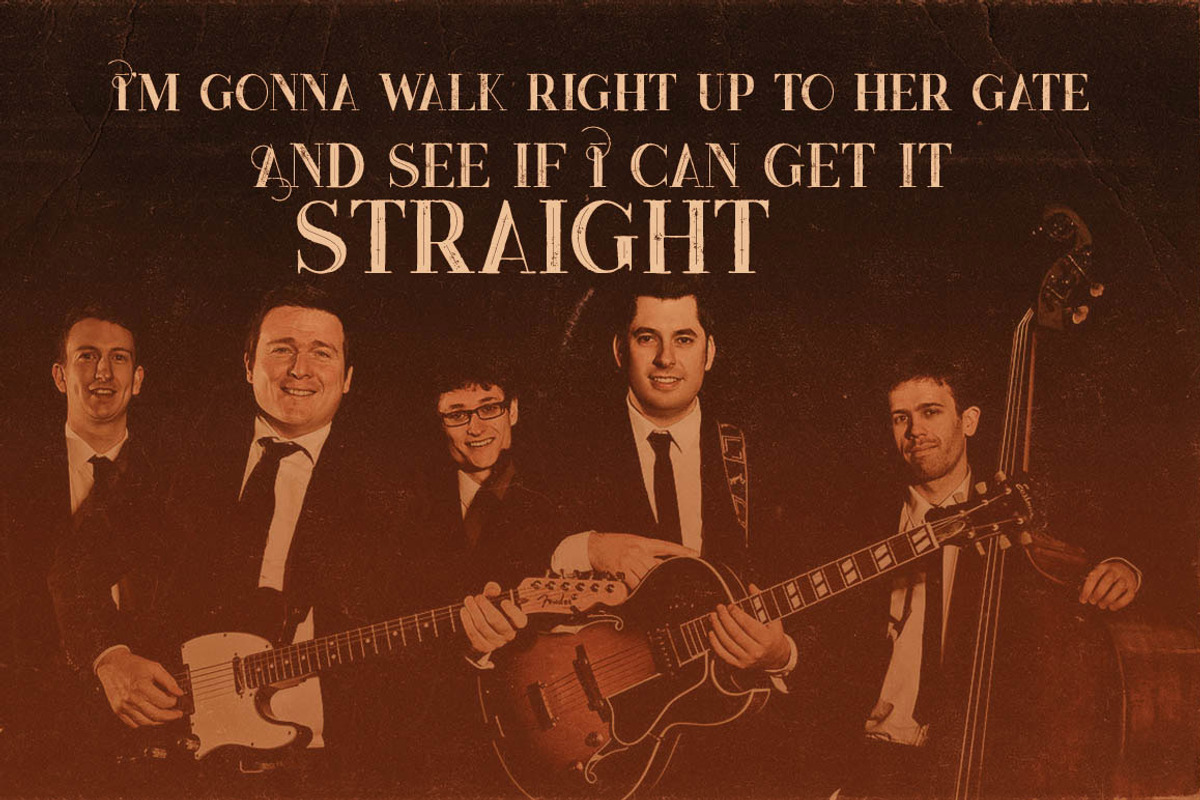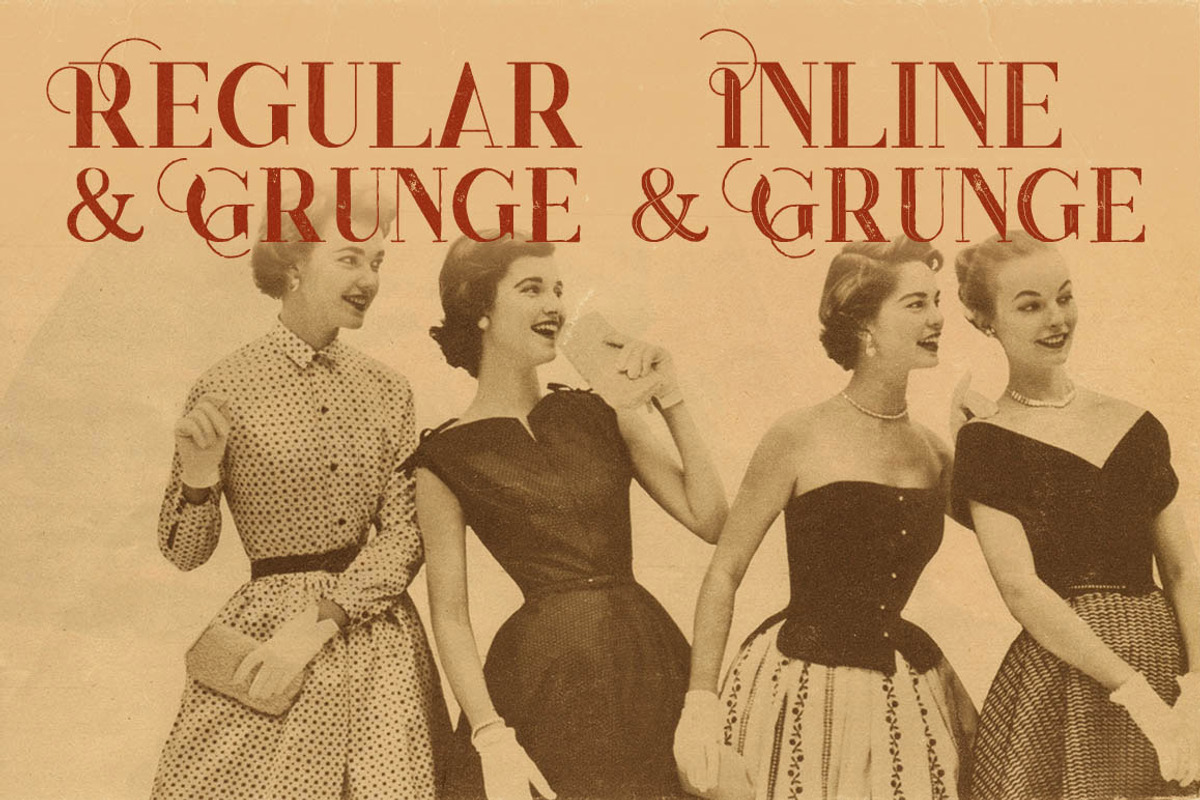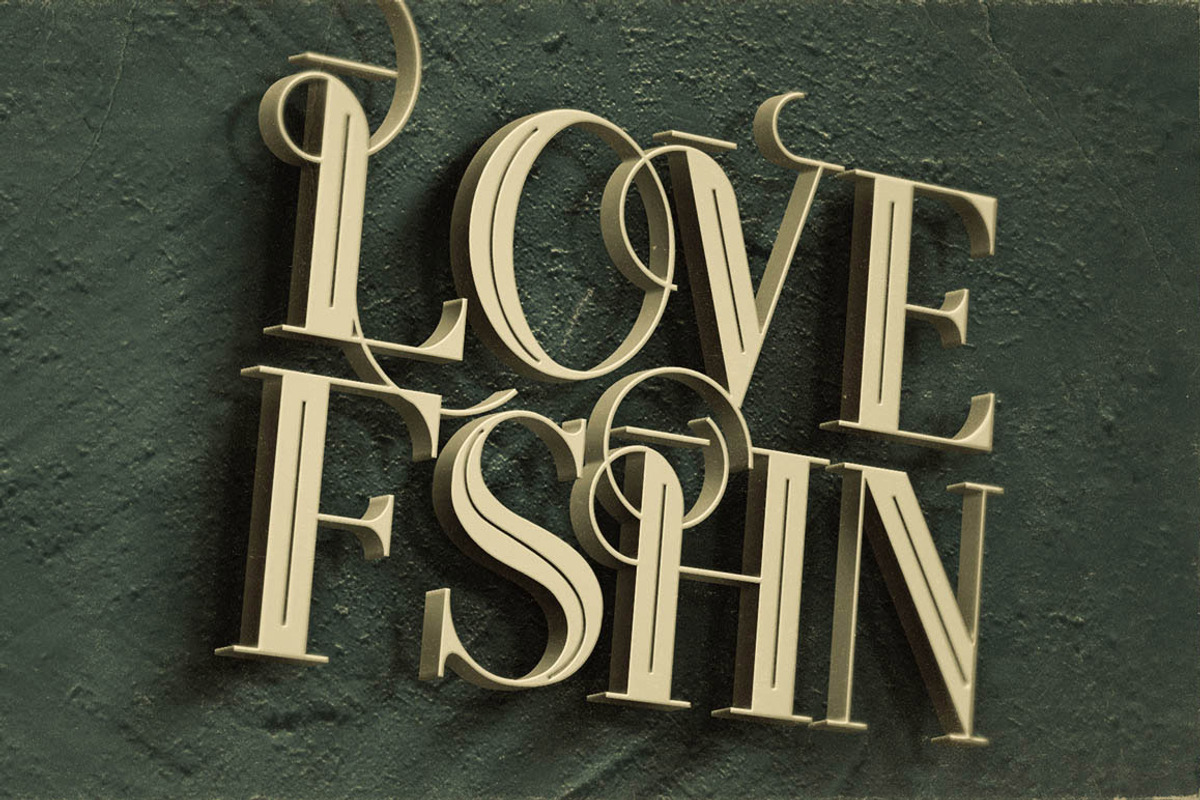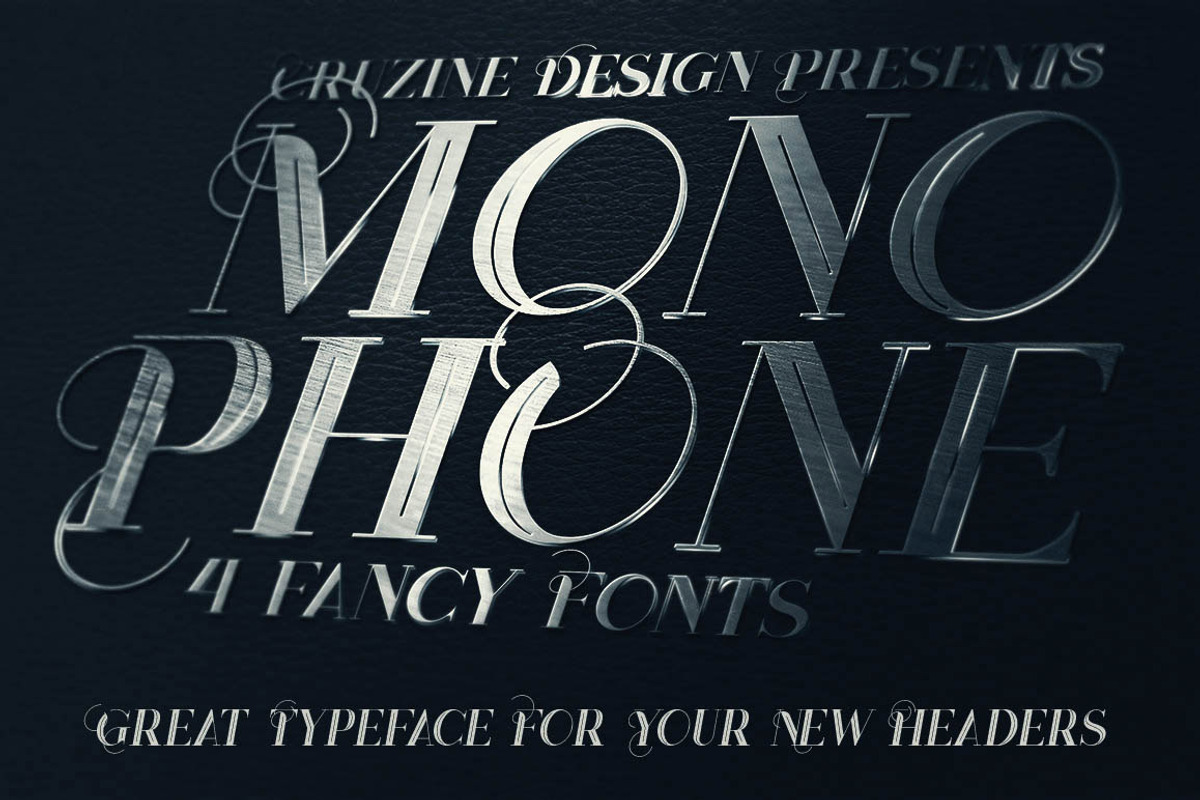
Monophone - Fancy Font
Monophone - Fancy Font by Cruzine is a font selected for branding, posters, packaging, typography.
Why Monophone - Fancy Font is worth a look
Monophone - Fancy Font by Cruzine fits naturally into Branding, posters, packaging, typography.